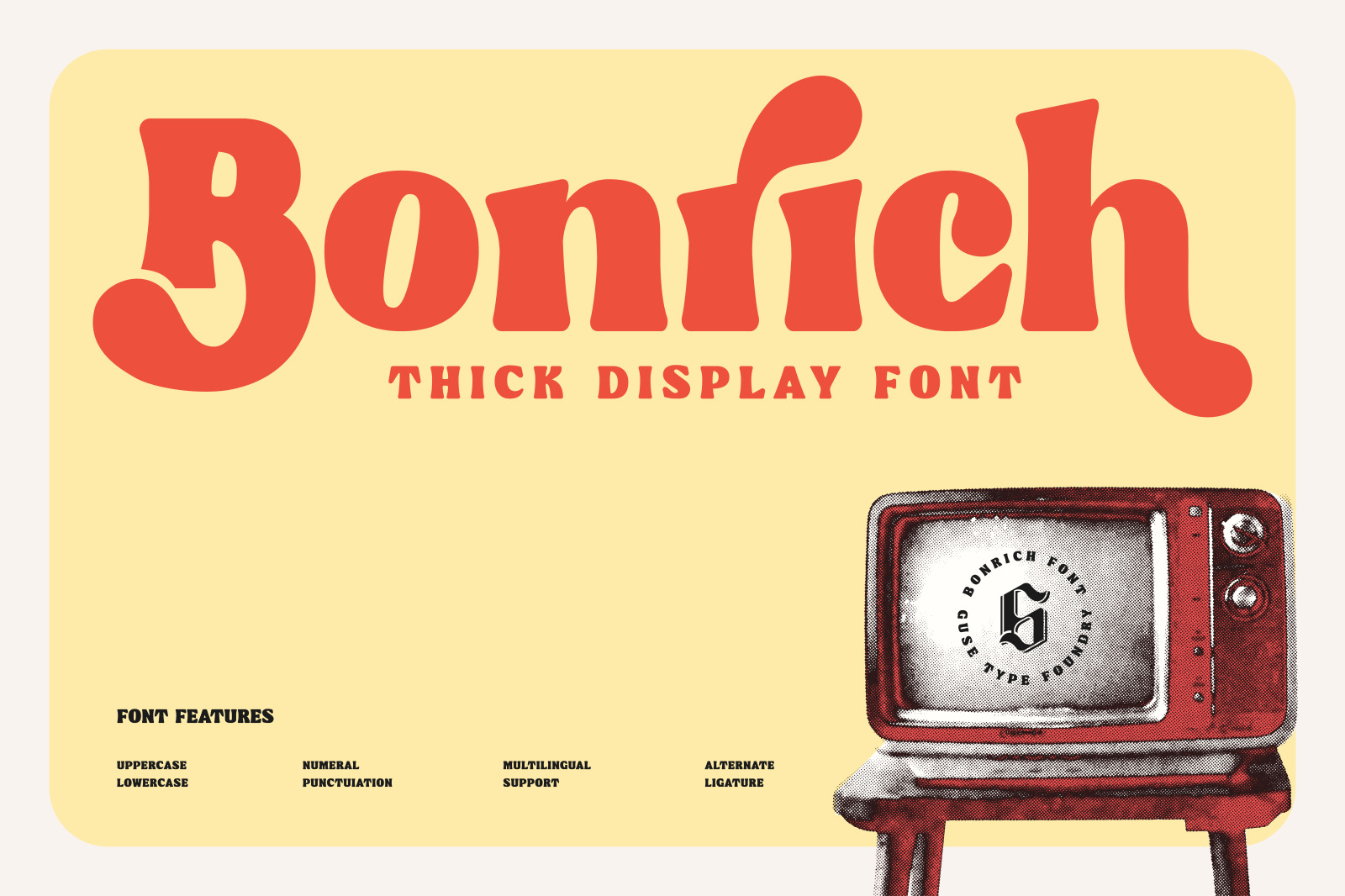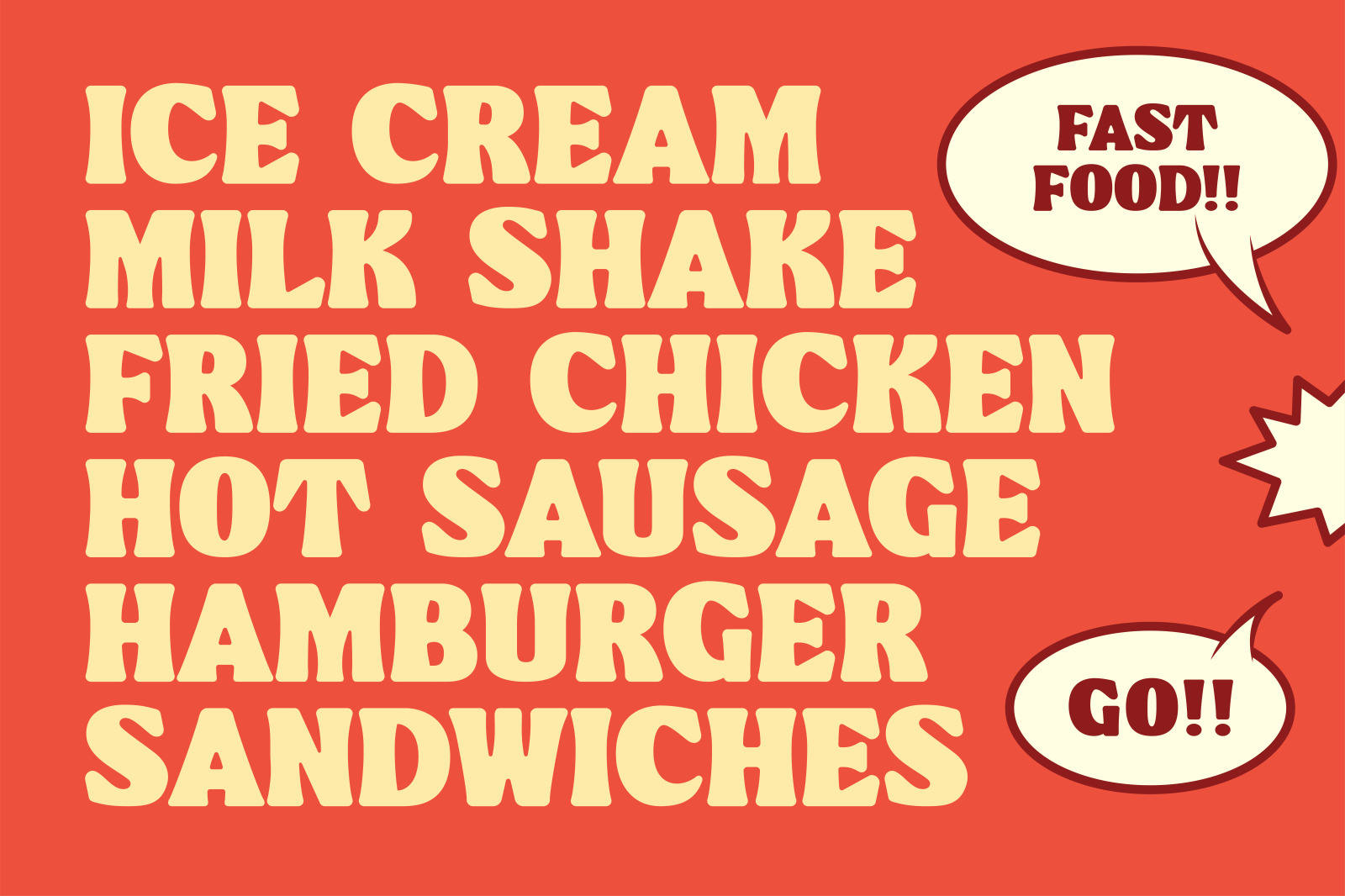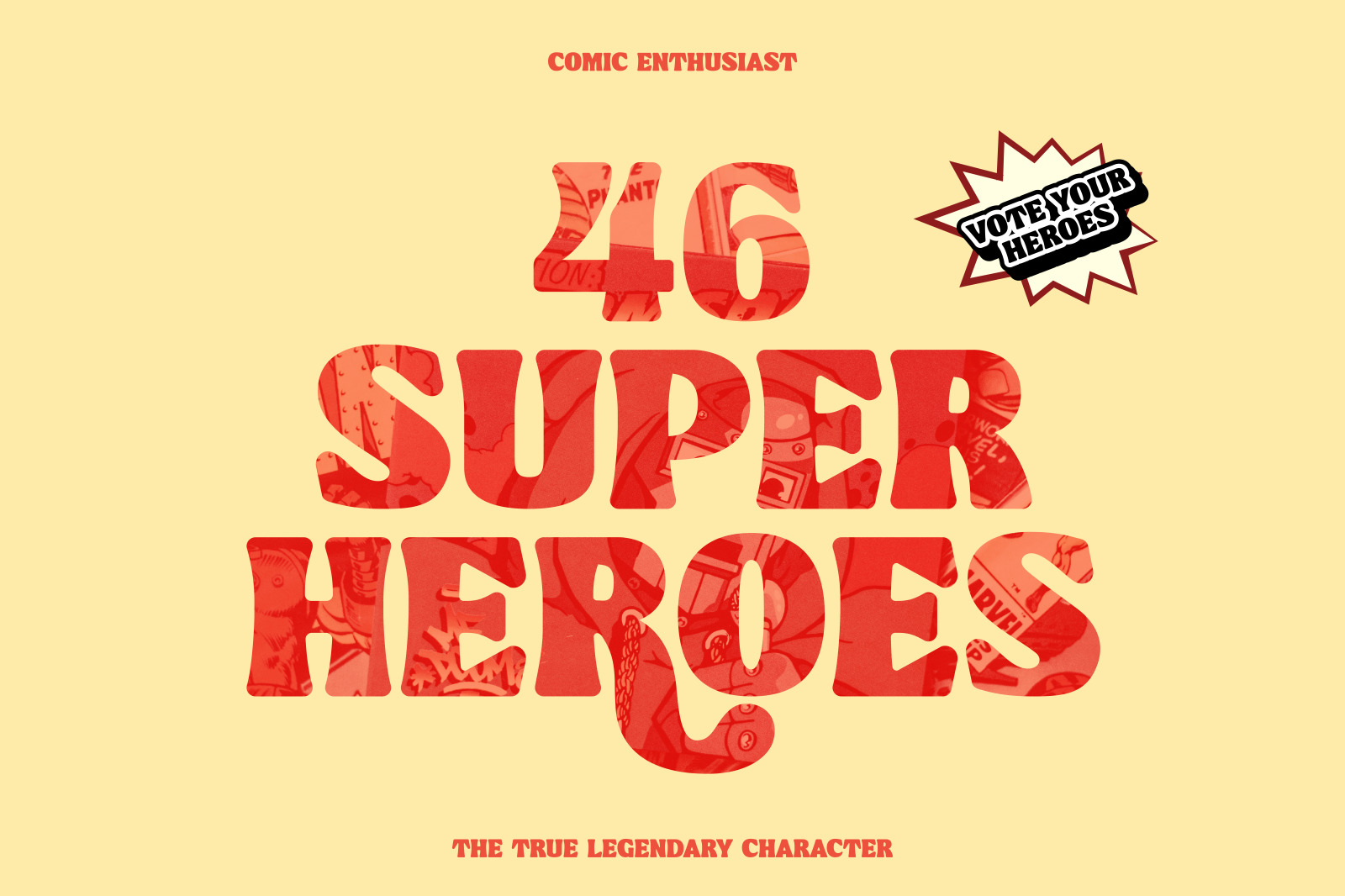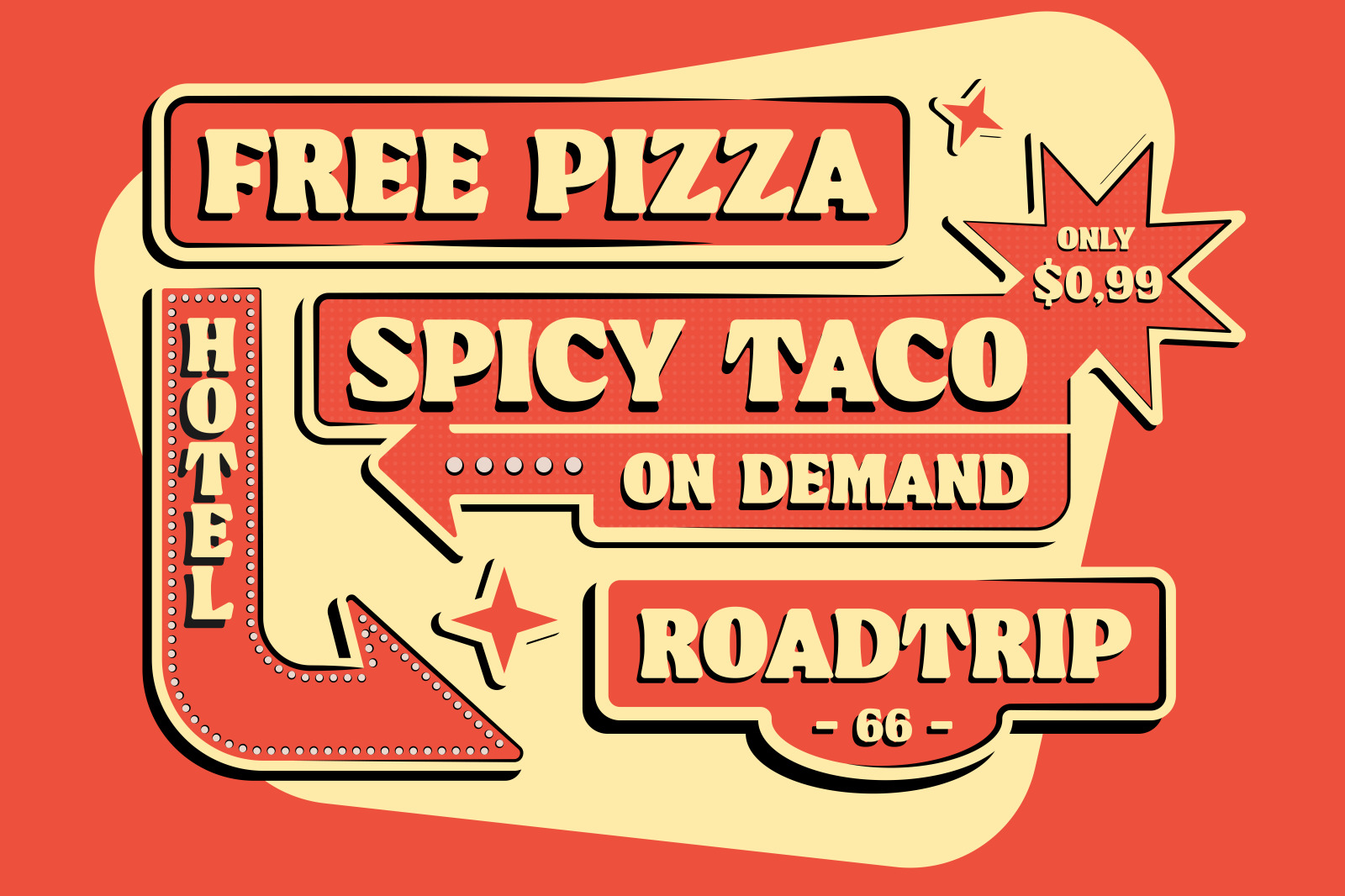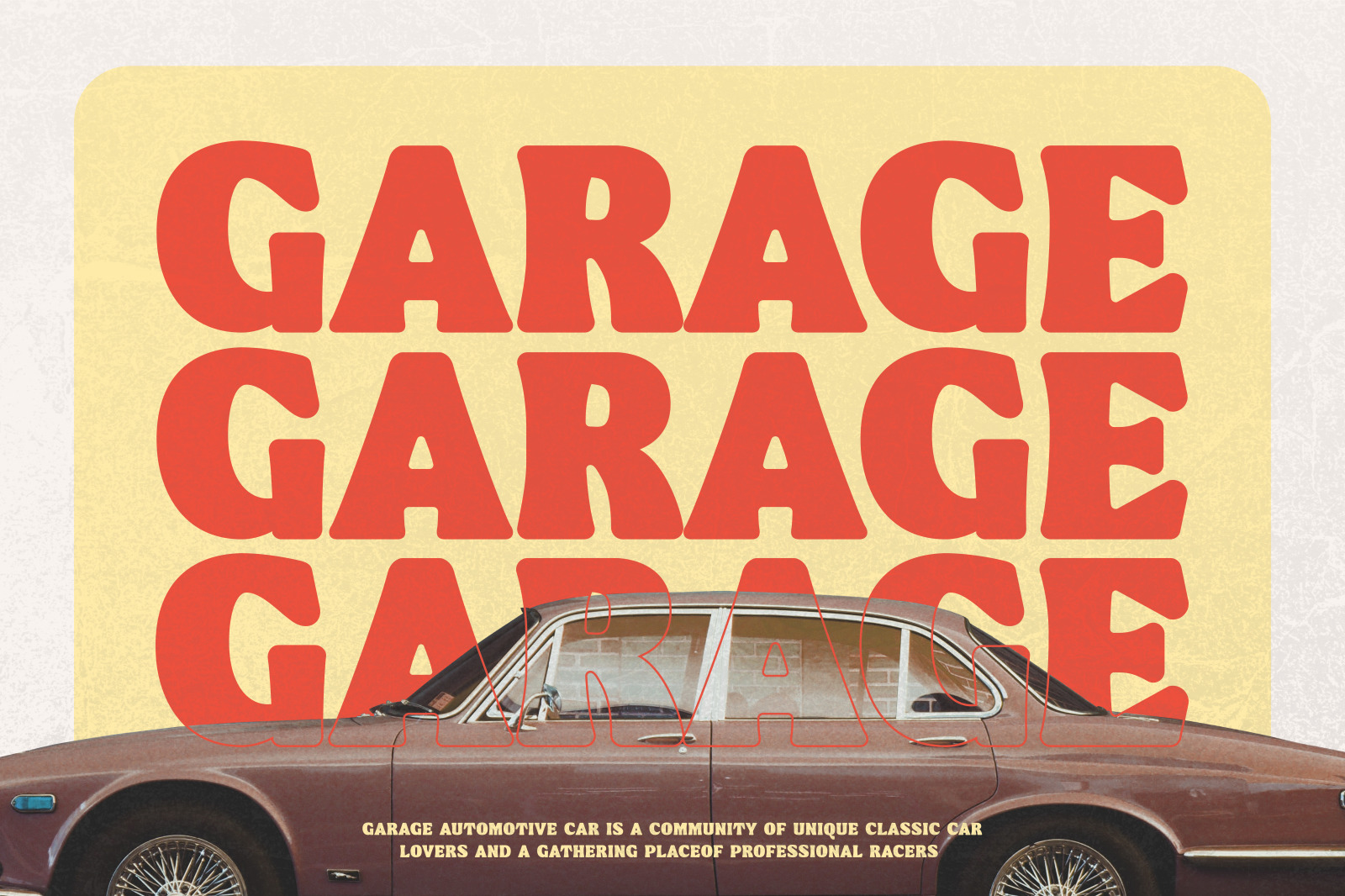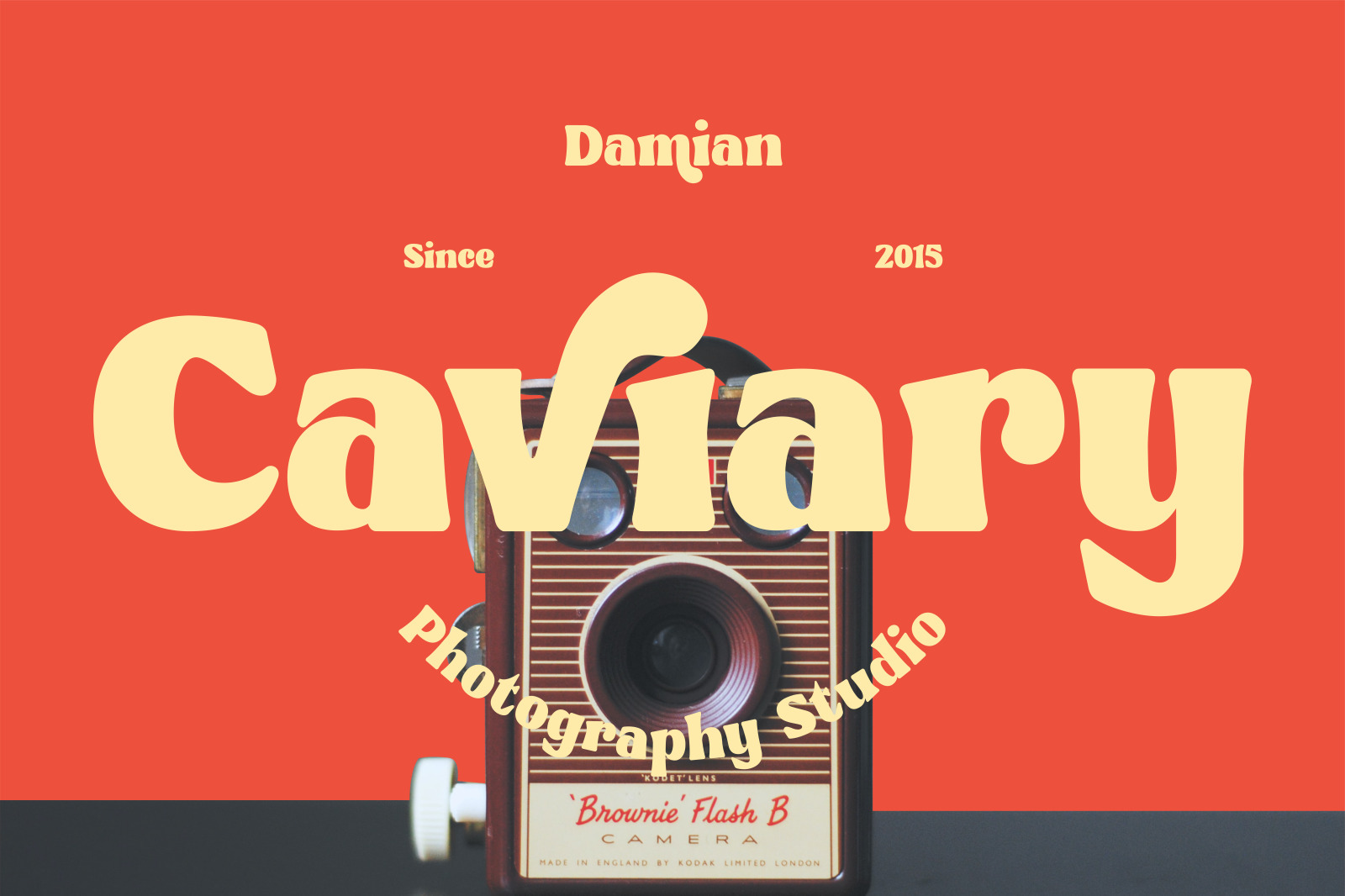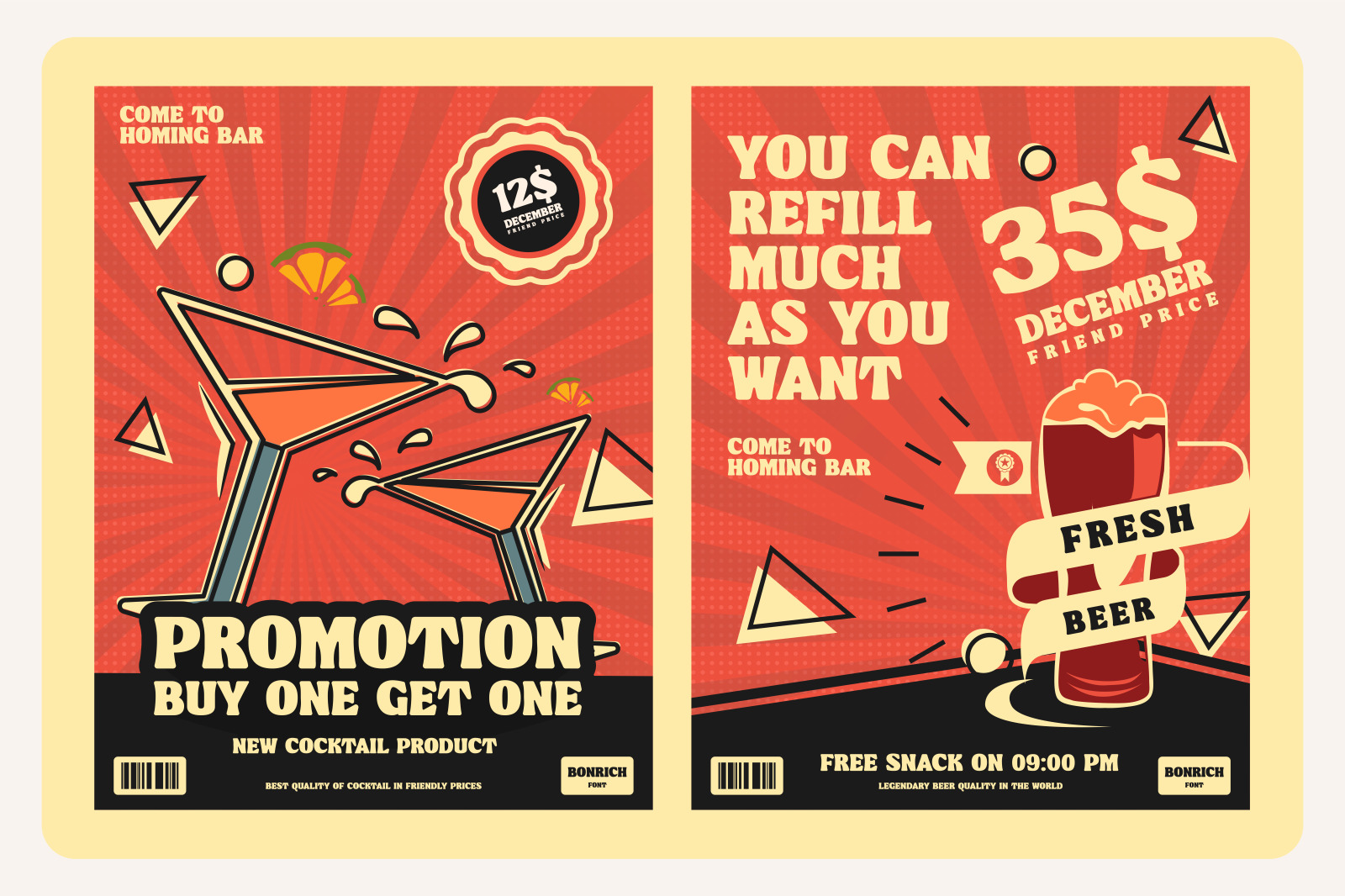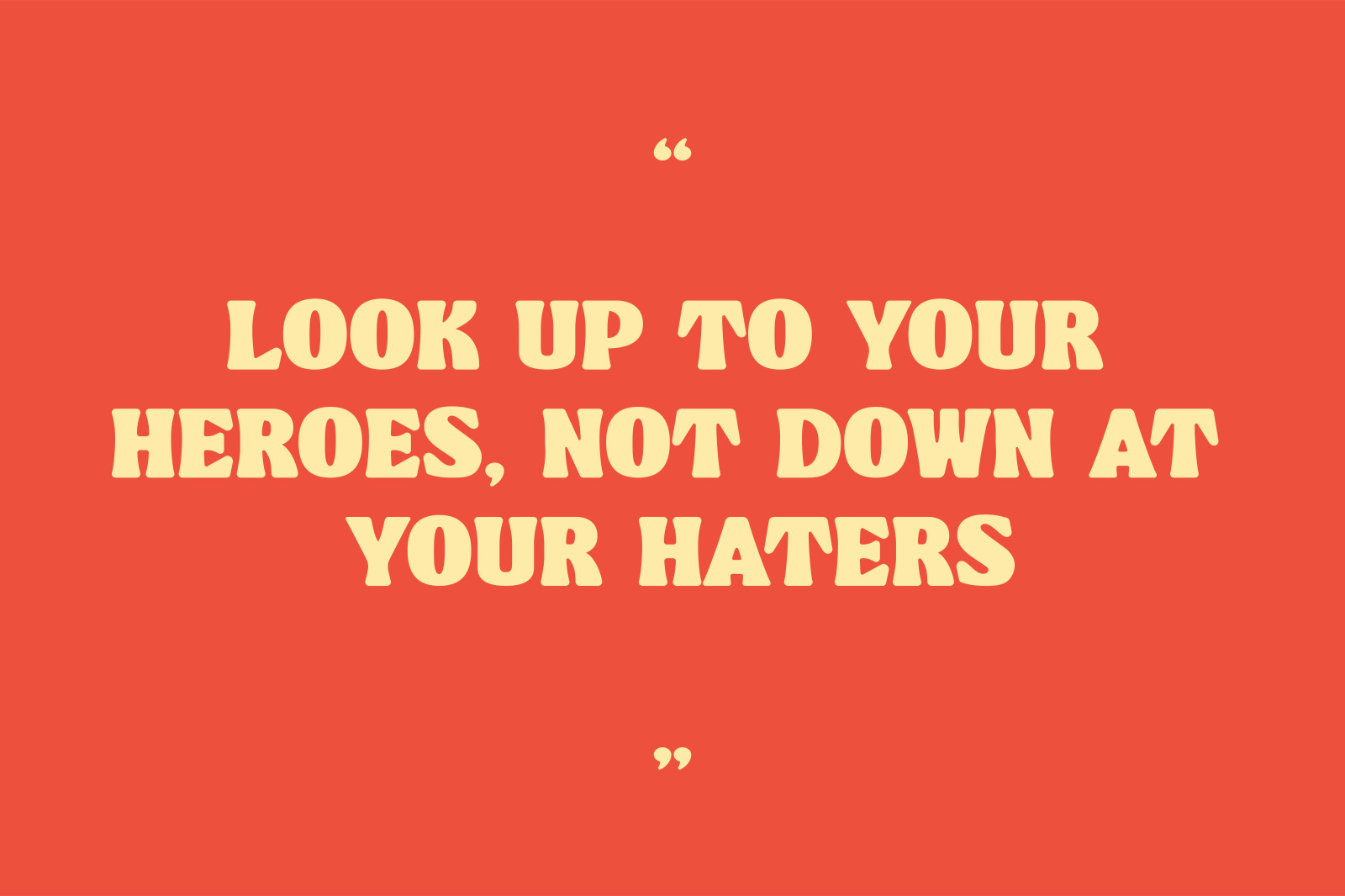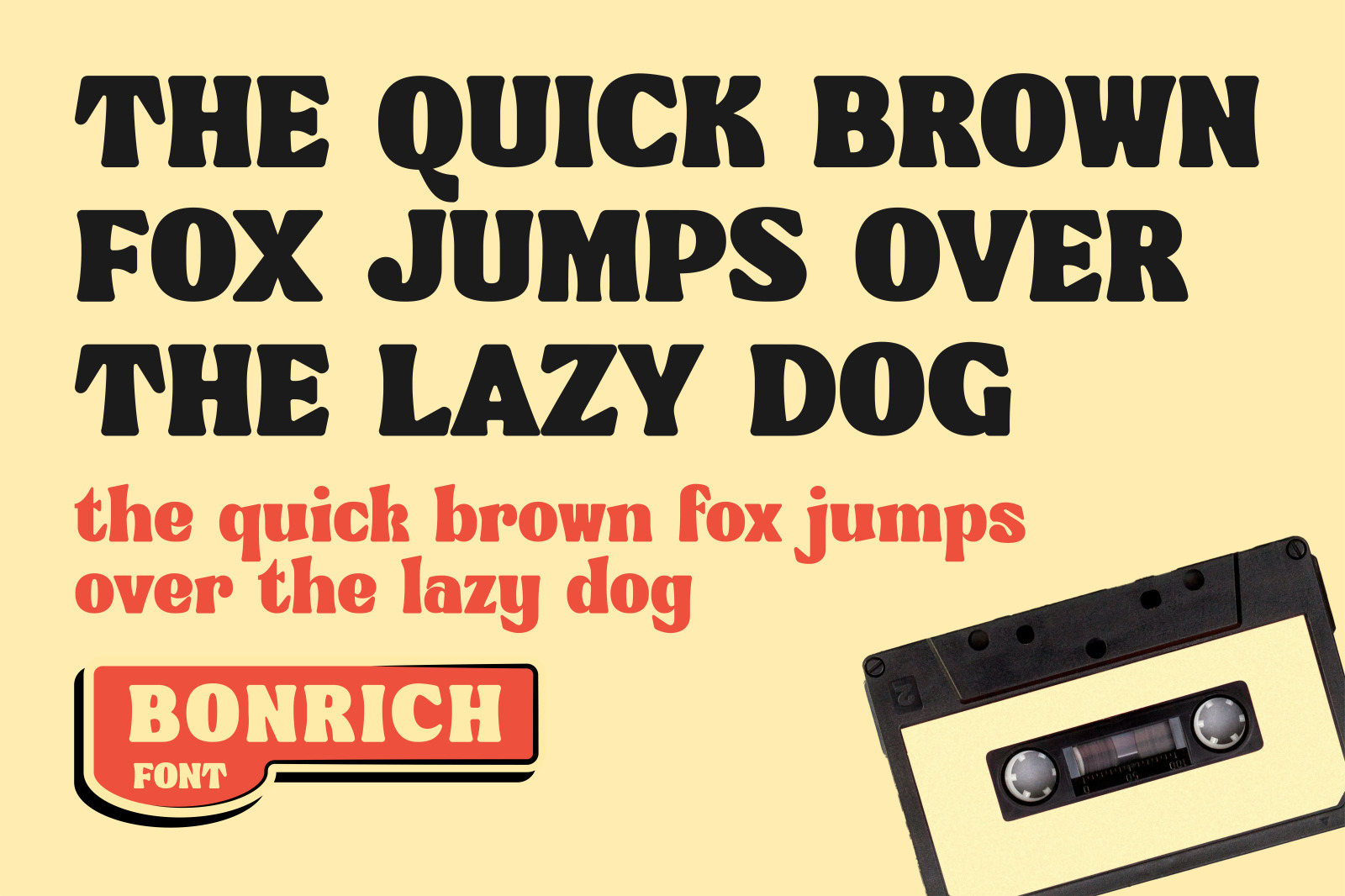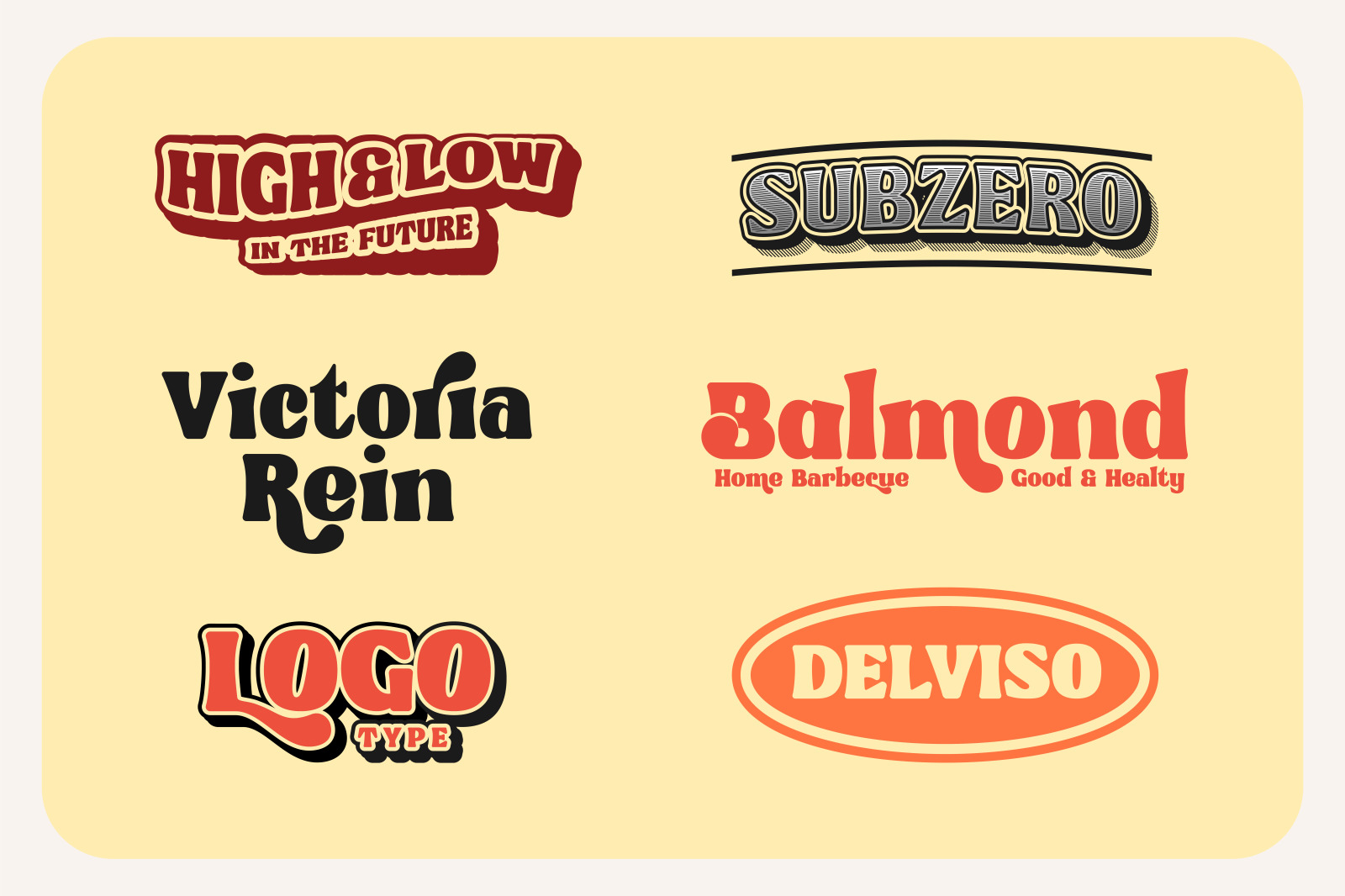
Bonrich - Display Font
Bonrich is a display font made with thick lines characteristics and rounded edge at each glyphs. This font suitable for retro & vintage style design. Bonrich can be used in a various of designs such as headlines, posters, logotype and many more.
- Kerning
- Alternative Style and Ligature
- Uppercase and Lowercase Letters
- Numeral
- Punctuation and Symbols
- Multilingual Supports